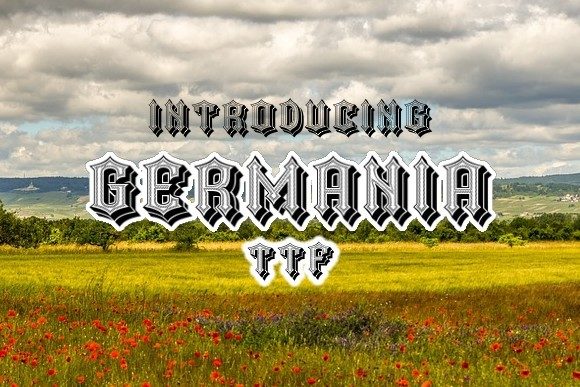
Jump into a realm where nostalgia meets innovation with Germania Font, the ultimate display font that sparks your creativity and elevates your designs. Germania is not just a font; it's a journey through time, blending retro charm with modern elegance.
Immerse yourself in the world of captivating logos, where Germania Font takes center stage, exuding an aura of vintage appeal with a touch of contemporary flair. Each letter is meticulously crafted to resonate with the past while embracing the future, giving your designs a timeless allure.
With Germania Font, you can craft logos that whisper tales of heritage and evoke emotions that transcend generations. Its carefully balanced strokes and distinctive glyphs create an instant connection with your audience, leaving a lasting impression that speaks volumes about your brand's identity.
Let your imagination soar with Germania Font's endless possibilities. Create monograms with a personal touch, capturing the essence of individuality in every curve and line. Embark on a typographic adventure, designing posters, flyers, and brochures that captivate and engage, leaving your audience spellbound.
Unleash the power of Germania Font in your social media campaigns, crafting eye-catching posts and headers that demand attention. Its unique personality shines through, adding a touch of retro sophistication to your online presence.
Germania Font is more than just a visual treat; it's a catalyst for creativity. Its versatility knows no bounds, adapting seamlessly to a myriad of projects, from branding and marketing to packaging and signage. With Germania Font as your creative companion, the possibilities are infinite.